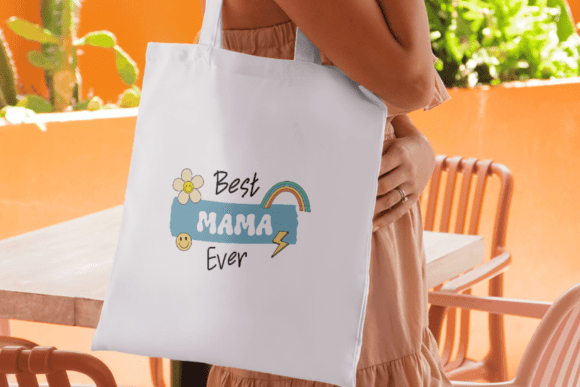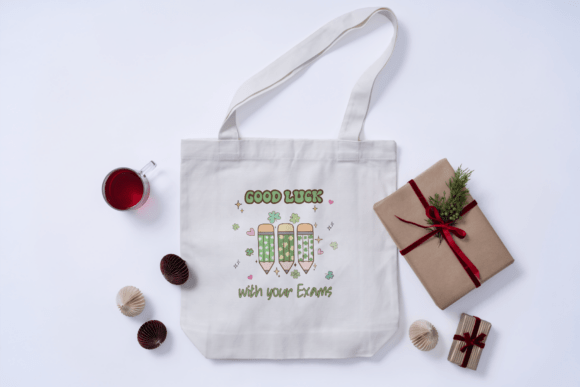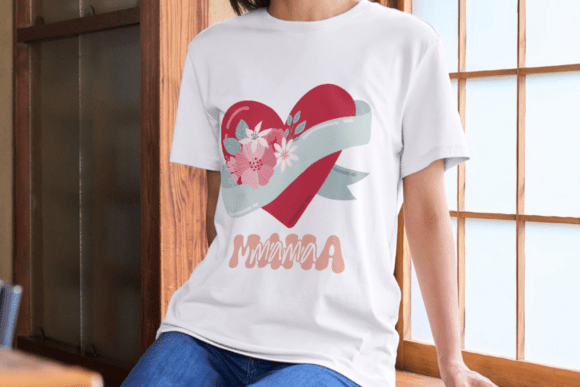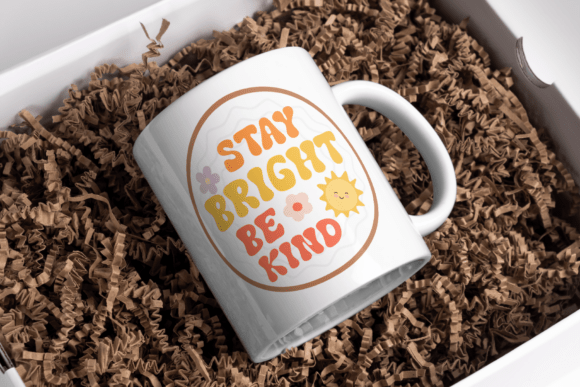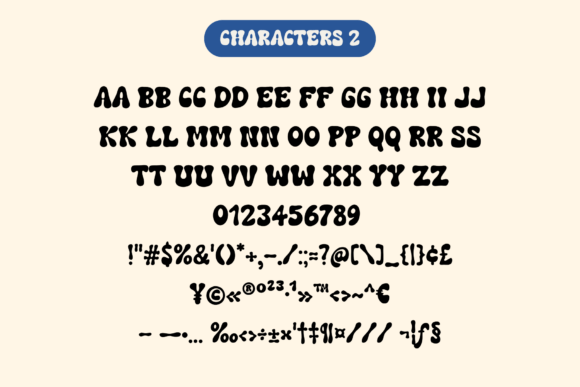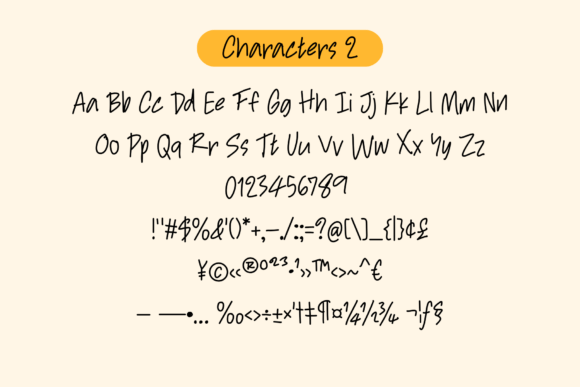
Introduction to Mama Summer Font
As a designer, there’s nothing quite like the rush of creating something special for a loved one. You’re brainstorming ideas for a Mother’s Day card, and suddenly, the perfect font pops into your head. That’s exactly what happens when you discover the Mama Summer Font – a charming duo font that perfectly captures the warmth and love of a family moment.
With its flowing script and bold handwritten style, Mama Summer Font is the perfect design resource for any creative project that needs a touch of personality. Whether you’re working on a branding project, crafting social media posts, or designing t-shirt graphics, this high-quality font is sure to bring a natural and expressive feel to your work.
Key Features of Mama Summer Font
- Perfect for summer-themed designs, weddings, and other outdoor events
- Unique, hand-drawn style that adds a personal touch to any creative project
Honest Review: Mama Summer Font
I recently came across the Mama Summer Font, and I must say it’s a lovely addition to any design project. This font is perfect for those looking to add a touch of warmth and playfulness to their creative work.
- ✨ Unique and quirky design that stands out from the crowd
- ✨ Highly versatile, suitable for various design applications
However, I do have a few reservations about the Mama Summer Font. While it’s free to download, the quality may not be as high as some paid fonts. Additionally, the font’s unique design may not be suitable for all projects, particularly those requiring a more formal tone.
- ⚠️ May not be suitable for formal or professional projects
- ⚠️ Quality may not be on par with paid fonts
Overall, I think the Mama Summer Font is a great resource for designers looking to add a touch of whimsy to their work. While it may not be perfect, its unique design and free download make it an excellent choice for creative projects.
How to Use Mama Summer Font
The Mama Summer Font is a high-quality design resource that can add a touch of elegance to your creative projects. This free download comes with a transparent background, making it easy to integrate into various design tools.
The Mama Summer Font is suitable for a wide range of creative